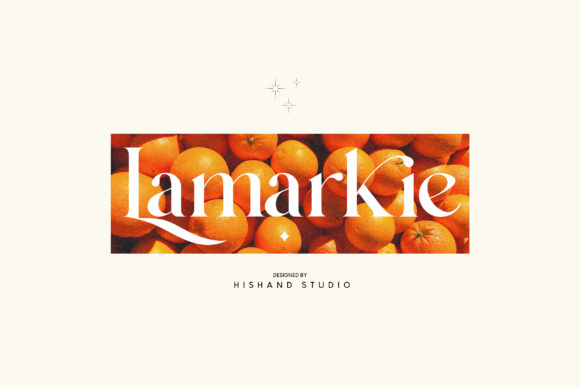
**Introducing Lamarkie: The Sophisticated Serif Font for Fashion Forward Designs**
Step into the world of unparalleled elegance and timeless style with Lamarkie, the exquisite serif font family that exudes an aura of sophistication and modernity. Whether you're designing captivating fashion websites, alluring social media posts, or unforgettable branding materials, Lamarkie empowers you to elevate your creations with a touch of understated grace.
Crafted by the visionary minds at Hishand Studio, Lamarkie embodies the essence of classic typography while embracing a fresh and contemporary aesthetic. Its meticulously designed curves and refined serifs lend an air of refinement and sophistication to any design, making it the perfect choice for fashion-conscious brands and designers seeking to captivate their audience.
But beyond its captivating beauty, Lamarkie is also a versatile and practical font solution. Its PUA encoding grants you effortless access to a world of glyphs and swashes, empowering you to add a touch of playfulness and individuality to your designs. Whether you're crafting eye-catching headlines, alluring body copy, or stunning logos, Lamarkie seamlessly adapts to meet your every creative need.
**Why Choose Lamarkie?**
* **Unparalleled Elegance:** Experience the timeless beauty of classic serif typography with a modern twist, elevating your designs with a touch of sophistication.
* **Versatility Unleashed:** Explore a boundless world of creative possibilities with Lamarkie's extensive character set and effortlessly accessible glyphs and swashes.
* **Fashion Forward Inspiration:** Designed specifically for fashion-centric designers, Lamarkie captures the essence of style and sophistication, making it the perfect choice for showcasing your designs with confidence.
* **Effortless Creativity:** Unleash your creativity with Lamarkie's user-friendly PUA encoding, ensuring seamless access to a world of typographic possibilities.
Embrace the sophistication and style of Lamarkie today, and elevate your designs to new heights of elegance and modernity. Let your creativity soar as you craft captivating fashion-inspired designs that leave a lasting impression on your audience.